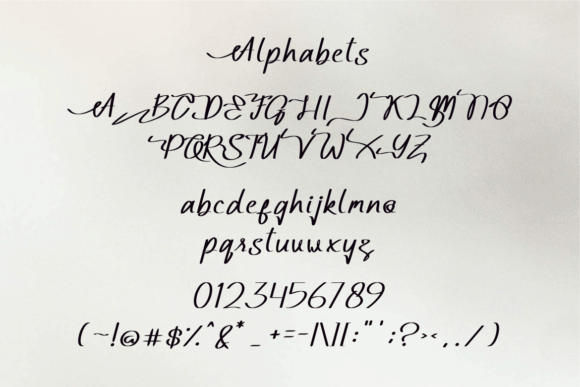
About Rubbariyas Font
**Elevate Your Designs with Rubbariyas Font**
Rubbariyas is a font that effortlessly combines elegance, class, and modernity. It has the potential to elevate a wide range of design projects, making it a versatile and captivating choice. Here’s why Rubbariyas deserves a special place in your creative toolkit:
**Elegant and Classy:** Rubbariyas exudes an air of elegance and class that adds a touch of sophistication to your designs. It’s the perfect choice when you want to convey refinement and style.
**Versatile Usage:** This font’s versatility makes it suitable for various design applications, including fashion, branding, album covers, logos, social media, and more.
**Fashion and Apparel:** Create stunning fashion branding and apparel designs that reflect the latest trends while maintaining a timeless elegance. Rubbariyas adds a touch of luxury to clothing labels and tags.
**Signatures:** Craft personalized and stylish signatures that leave a memorable impression. Whether for personal or professional use, Rubbariyas elevates your signature’s aesthetics.
**Album Covers:** Design captivating album covers that capture the essence of the music within. This font’s modern yet sophisticated style is ideal for creating album titles and artist names.
**Logos:** Develop memorable logos that resonate with your brand’s identity. Rubbariyas adds a unique flair to logos, making them more distinctive and recognizable.
**Branding:** Establish a strong and consistent brand image with Rubbariyas. Its elegance and modernity enhance your brand’s visual identity, leaving a lasting impact.
**Magazines:** Enhance editorial layouts for fashion magazines, lifestyle publications, and more. Rubbariyas can be used for headlines and titles, making your content more visually appealing.
**Social Media:** Elevate your social media posts and profiles with this font. Use it for captions, quotes, and promotional materials to create a cohesive and stylish online presence.
**Advertisements:** Design advertisements and marketing materials that stand out. Rubbariyas’ classy and modern look attracts attention and engages your audience effectively.
**Professional and Personal Projects:** Whether you’re working on professional or personal projects, Rubbariyas offers a versatile choice for conveying sophistication and style.
**Timeless Appeal:** This font’s modern design is complemented by its timeless appeal, ensuring that your designs remain relevant and attractive over time.
**Fine Details:** The font’s attention to detail and well-crafted characters make it suitable for projects that demand precision and aesthetics.
**Emotional Impact:** Rubbariyas evokes emotions of elegance, class, and modernity, making it ideal for designs that aim to create a strong emotional connection with the audience.
**Customization:** Access special characters and glyphs within the font to customize your designs further, allowing for creative and unique typographic treatments.
**Professional and Stylish:** Rubbariyas strikes the perfect balance between professionalism and style, making it suitable for a wide range of design projects.
**Captivating Audiences:** With its refined and modern appearance, Rubbariyas captures the attention of viewers and readers, leaving a lasting impression.
**Visual Consistency:** The font’s consistency and modernity make it an excellent choice for maintaining a cohesive visual identity across various design elements.
Rubbariyas is more than just a font; it’s a versatile tool for enhancing your designs and communicating elegance, class, and modernity